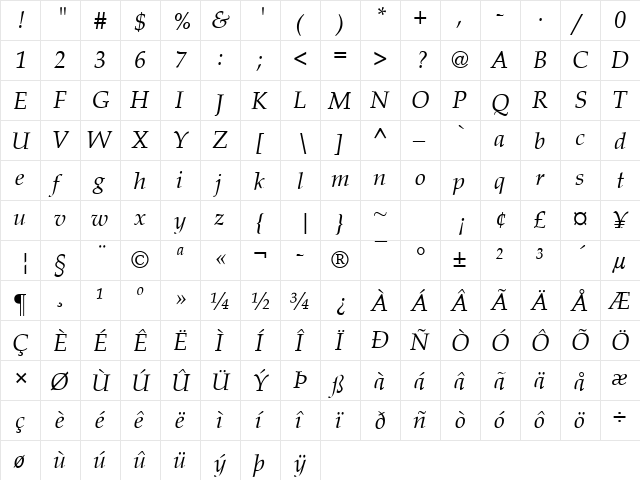
Whipping Post 1 Regular
Design Context for Whipping Post 1 Typeface
Whipping Post 1 is a composed and adaptable typeface that performs quietly and consistently across a wide range of design contexts.